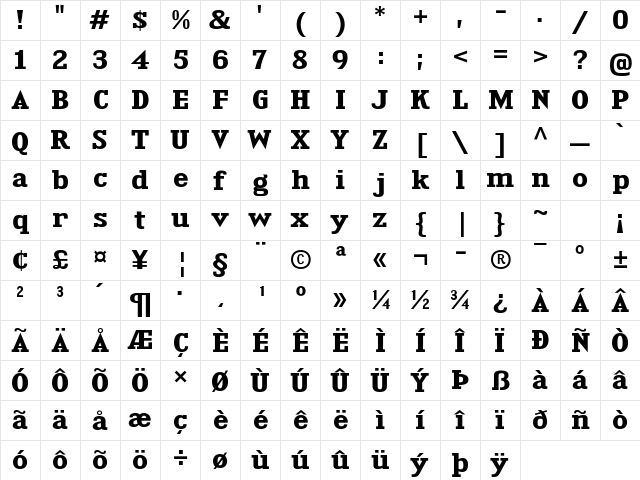
Kingsbridge Expanded Bold
Design Context for Kingsbridge Typeface
Kingsbridge is a composed and adaptable typeface that performs quietly and consistently across a wide range of design contexts. Its bold stroke weight gives it real presence on the page.
Pro Tip: Pair Kingsbridge with a font of contrasting weight or personality to build a more expressive typographic hierarchy.